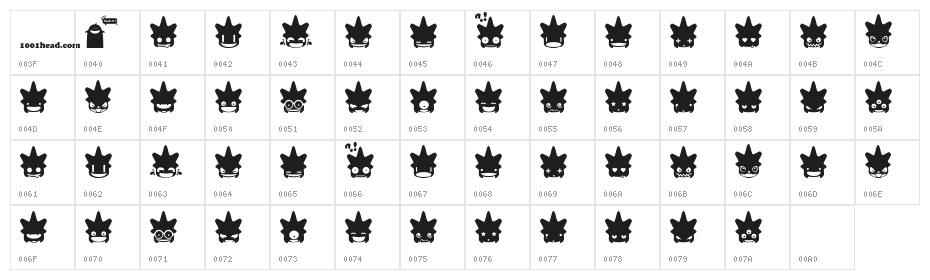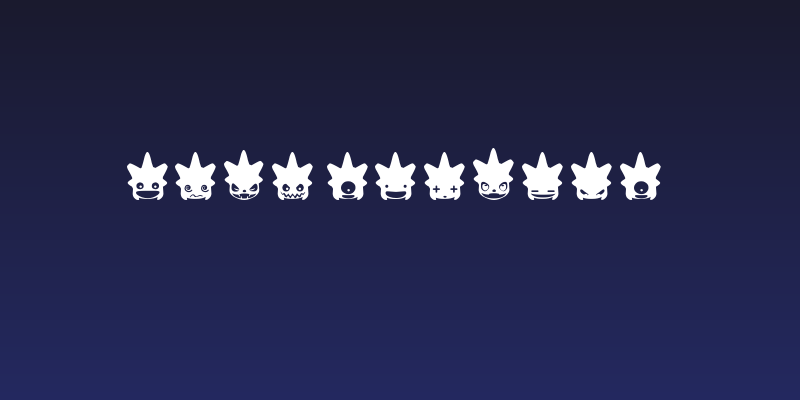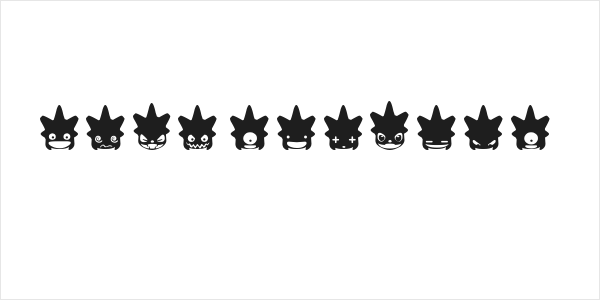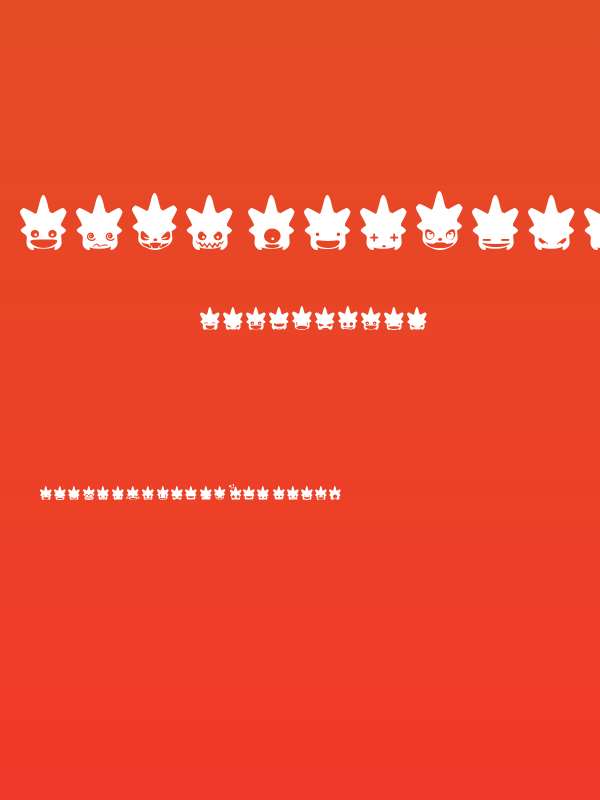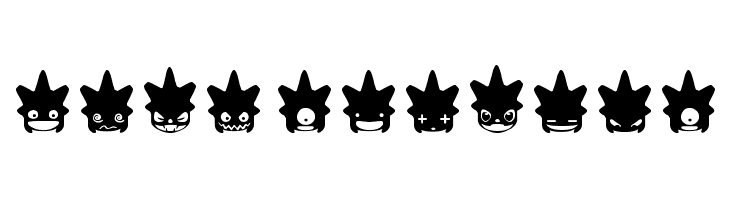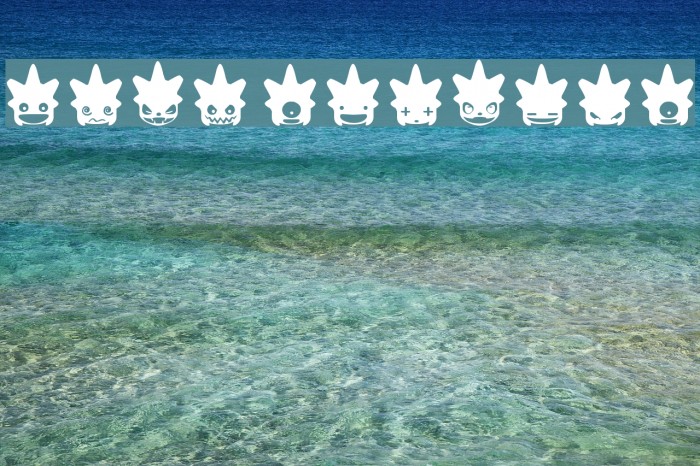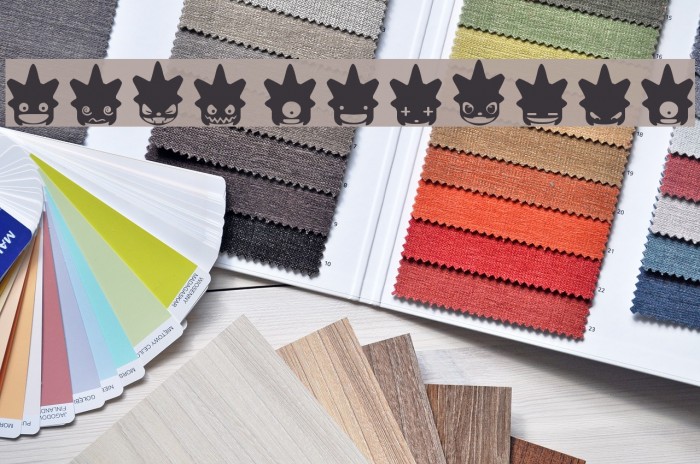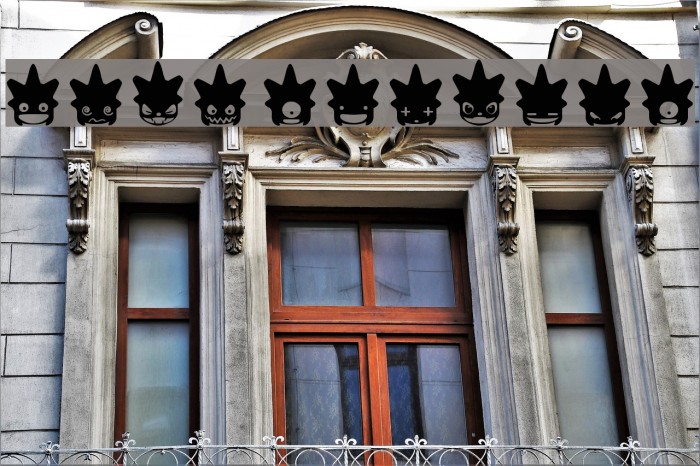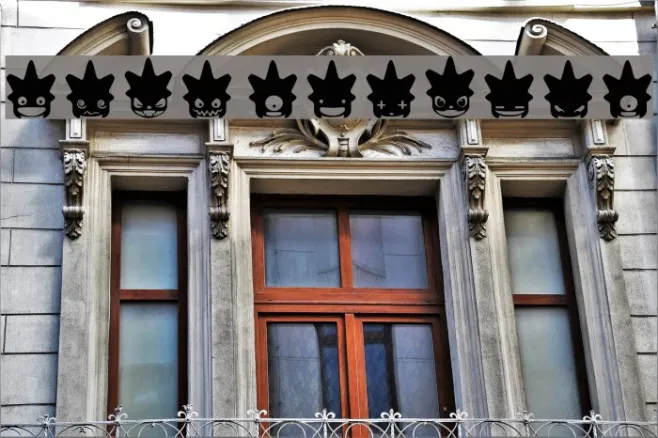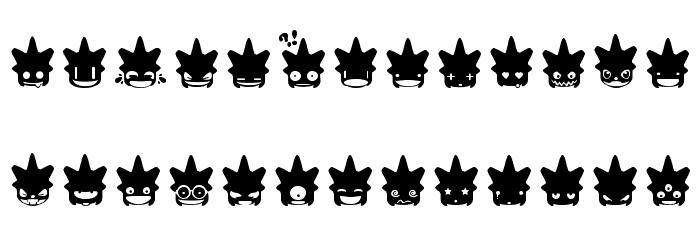
Punk Smileys Font
A playful and bold decorative font featuring punk-inspired smiley faces as characters, each with spiky hair and expressive facial features, creating a unique and energetic visual style.
| Overall Style | Decorative, Playful, Punk |
| Use Case | Headlines, Logos, Posters, Social media graphics |
| Proposed Projects | Youth event posters, party invitations, music festival branding, alternative fashion labels, playful merchandise, social media graphics. |